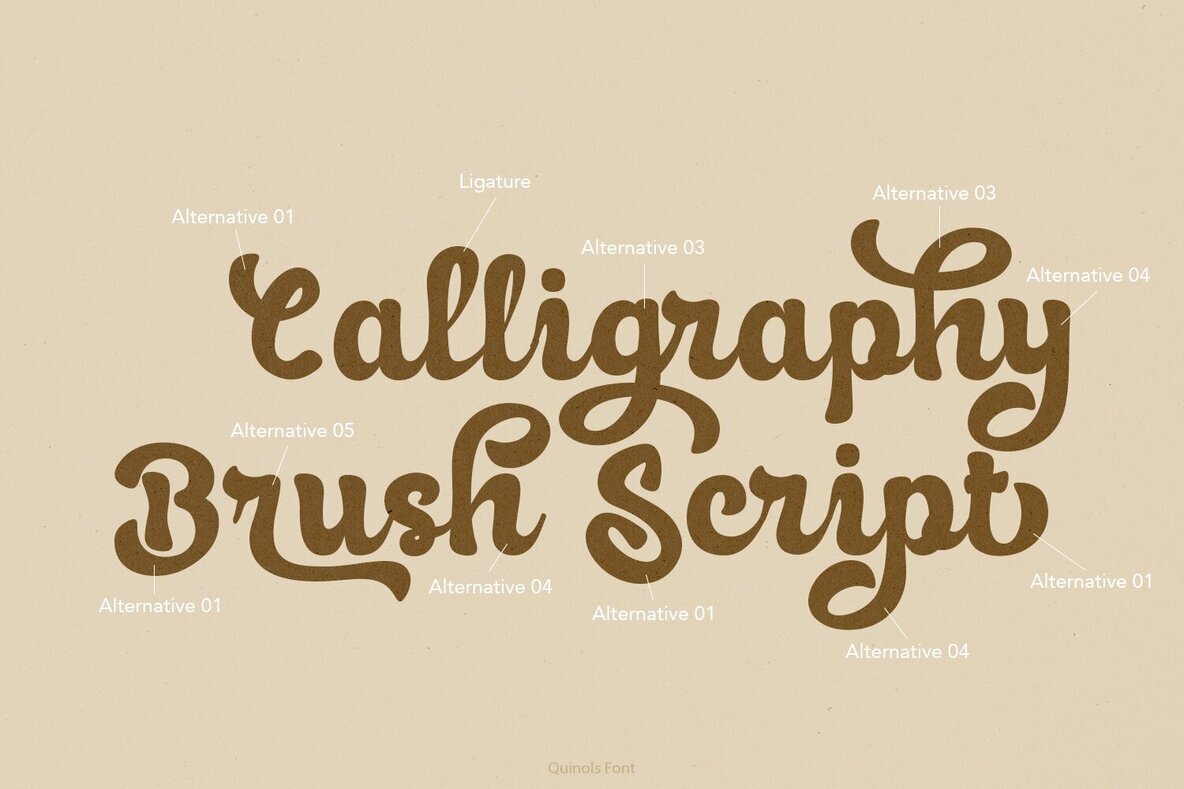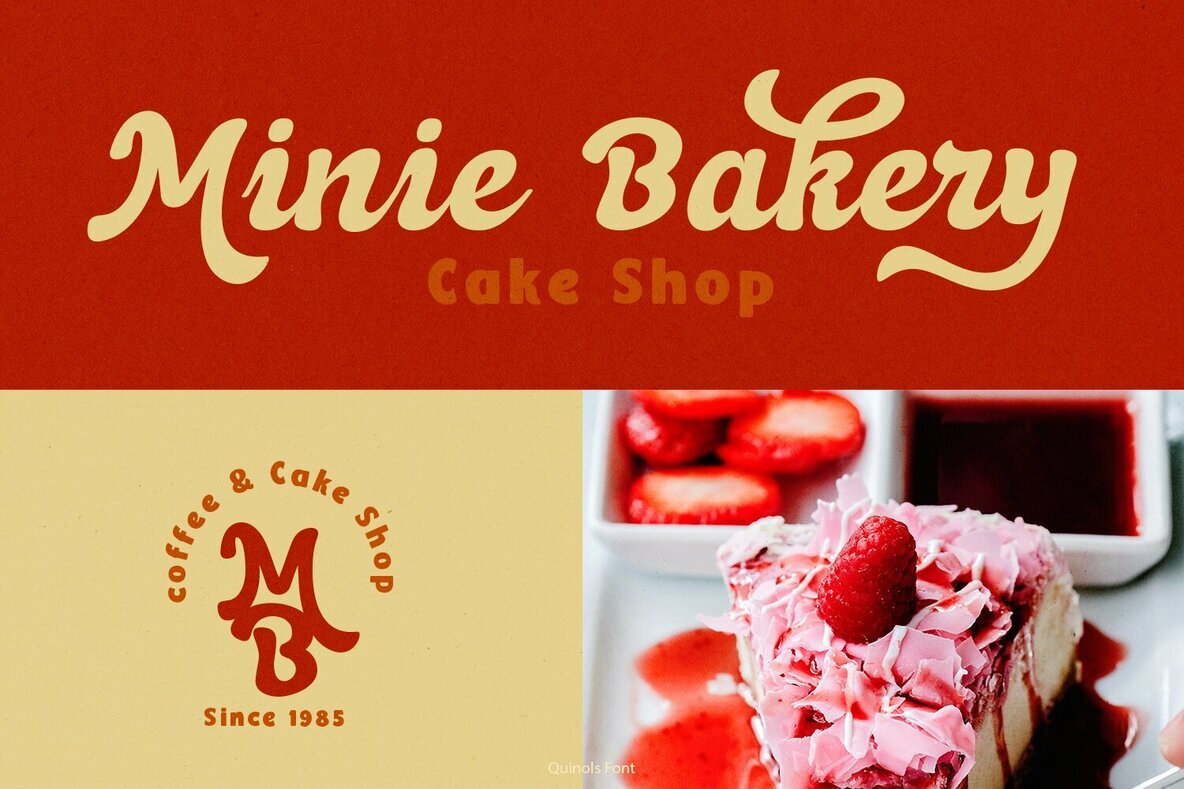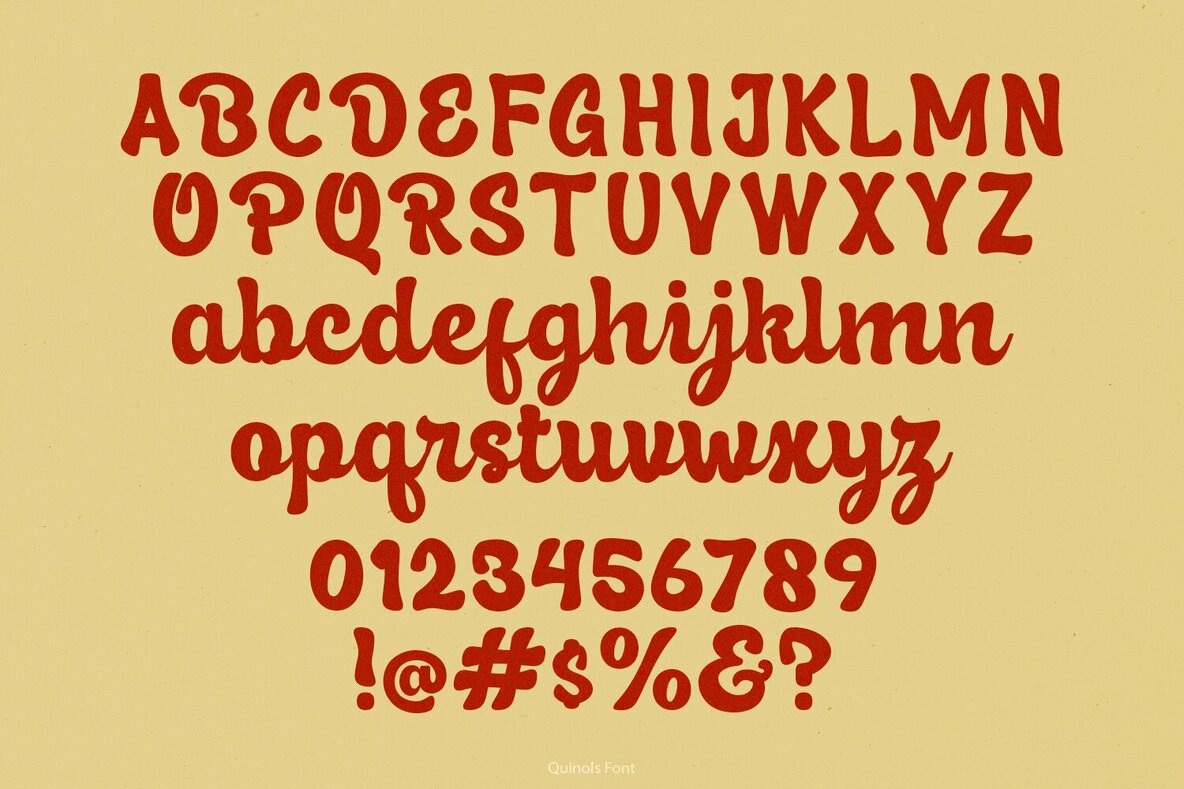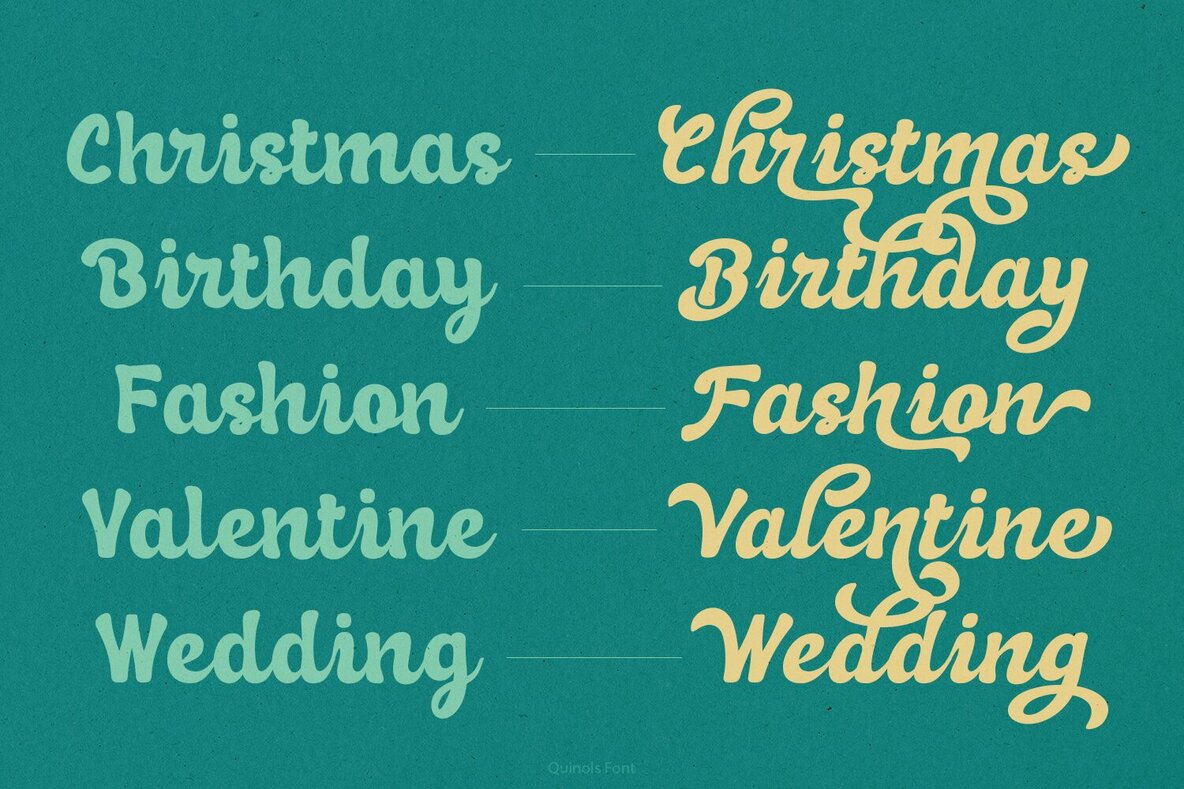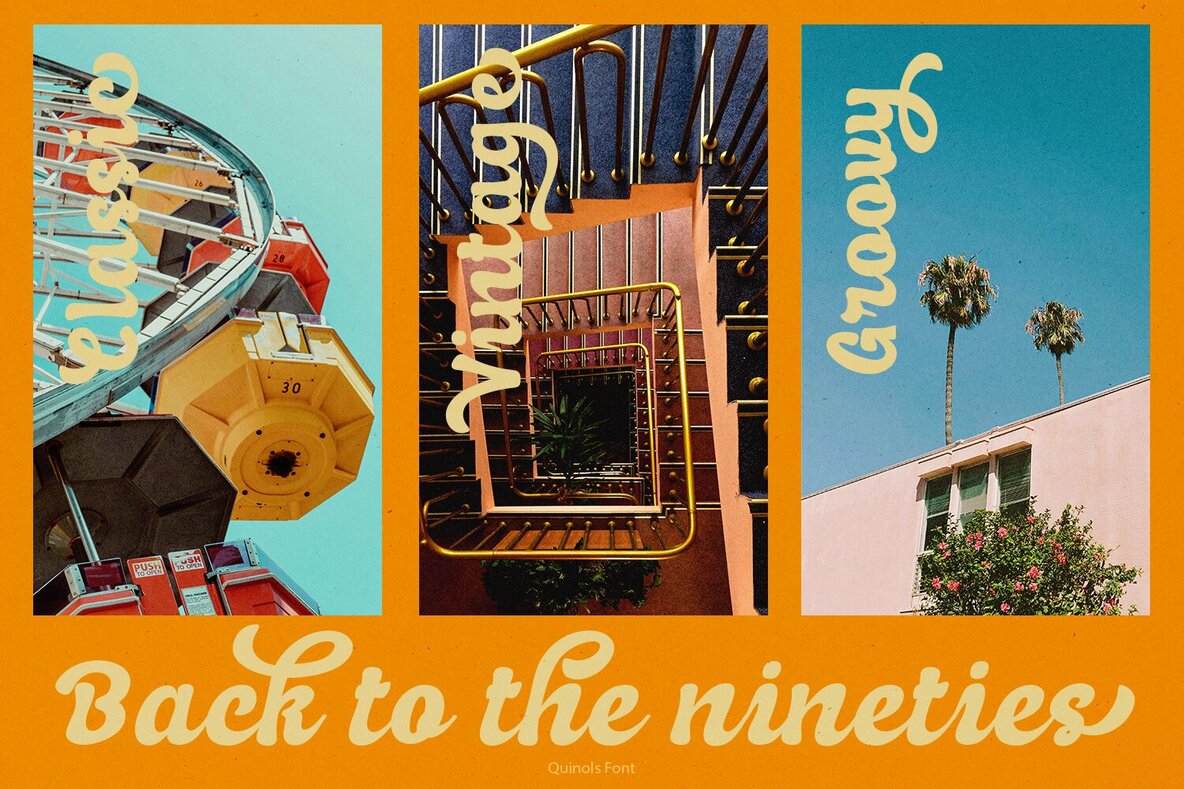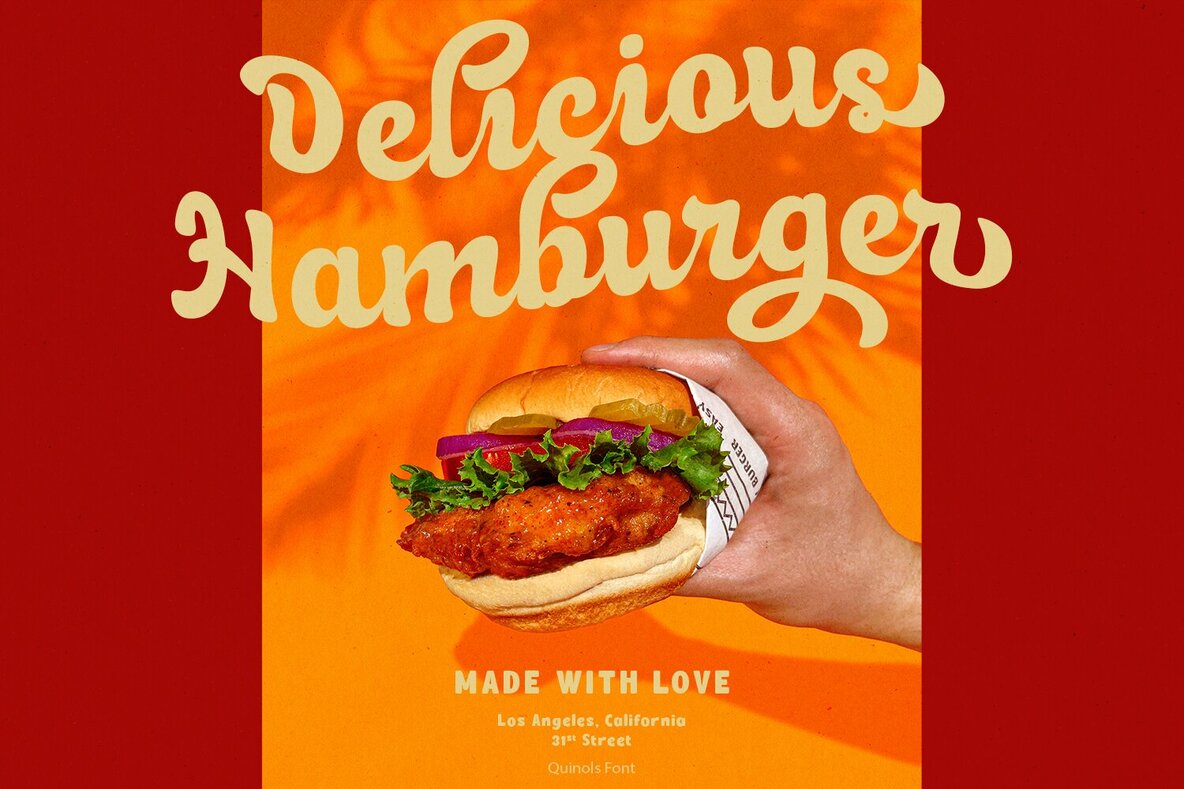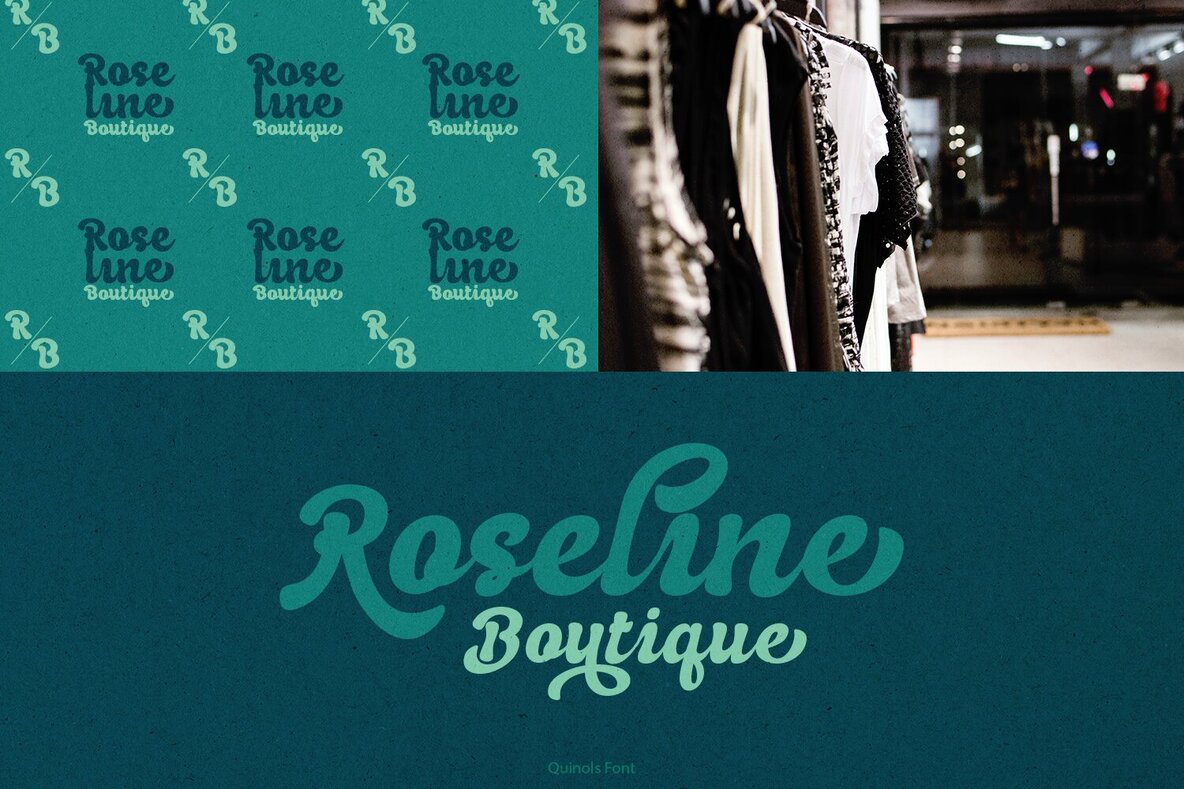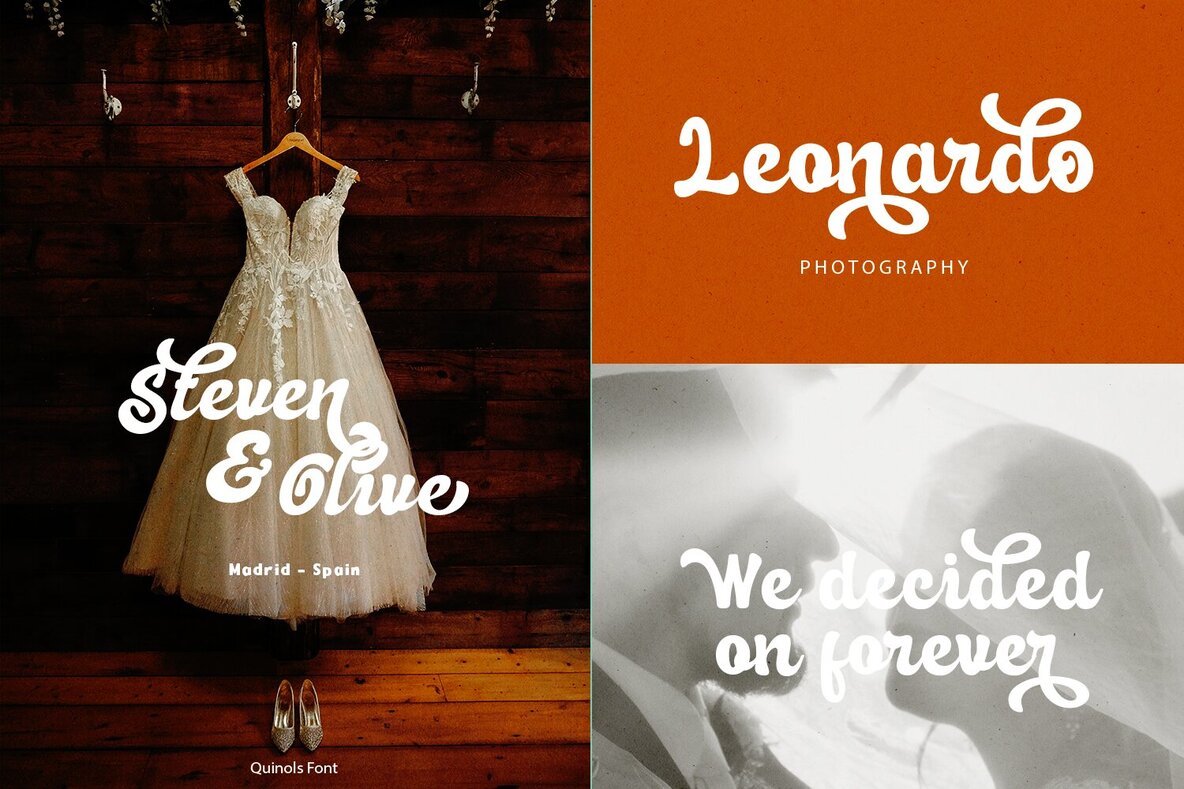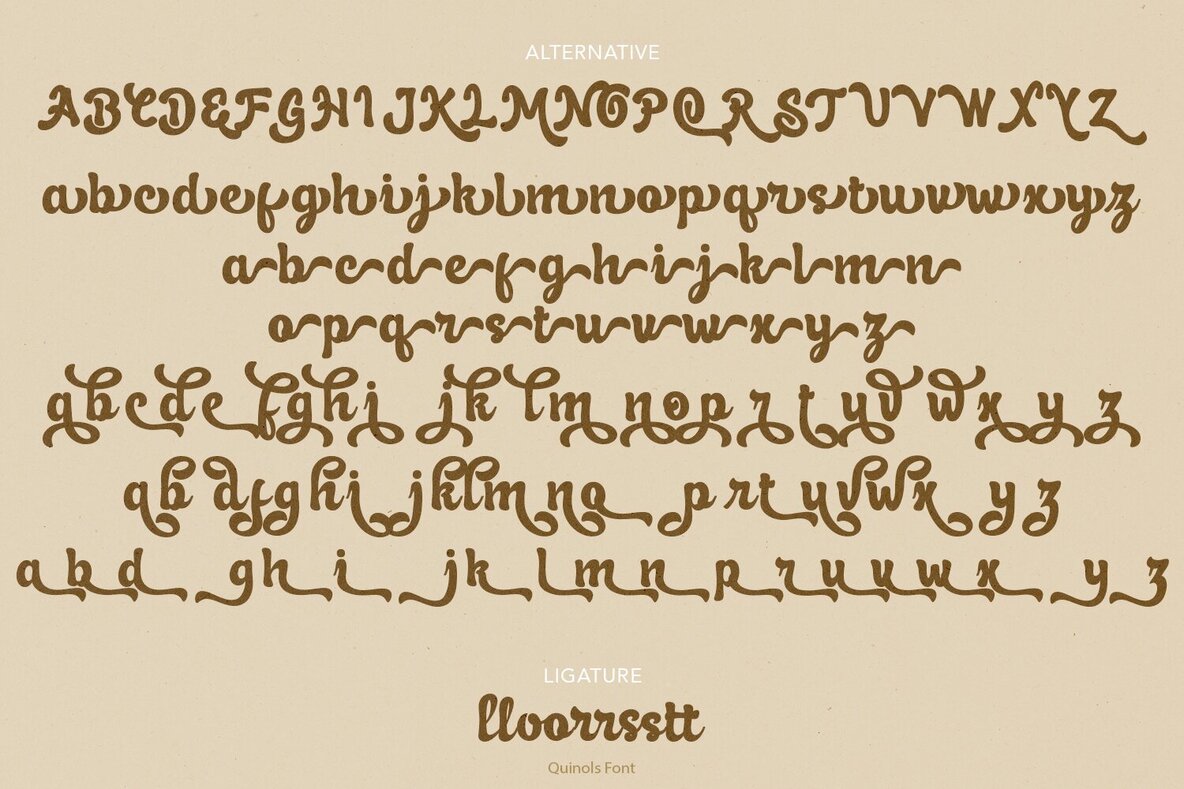
Quinols Font
Quinols Retro Script font features a playful curly style complemented by numerous alternates and ligatures, making it versatile for various design needs. Ideal for poster and book cover designs, Quinols adapts seamlessly to merchandise, fashion branding, and advertising projects. Its retro charm also shines in magazines, album covers, and wedding invitations, offering a distinct vintage appeal.
With its unique design elements, Quinols adds character and flair, enhancing readability while maintaining an artistic edge. Whether you're aiming to create a nostalgic atmosphere or simply want a touch of retro elegance, this typeface provides the perfect solution for your creative projects.